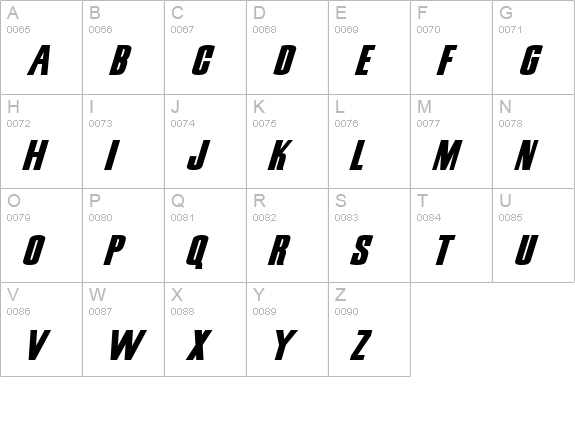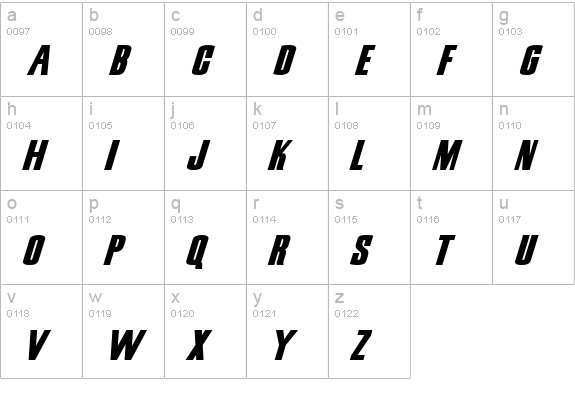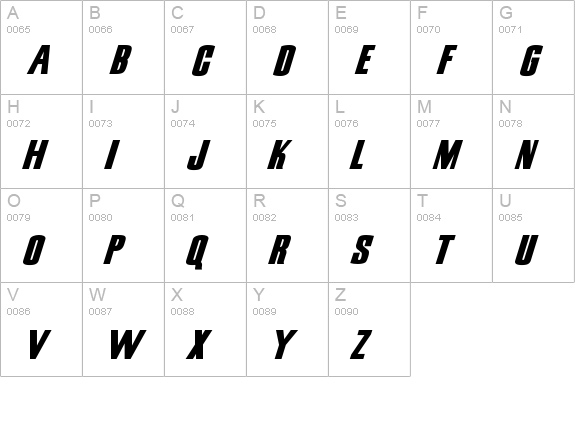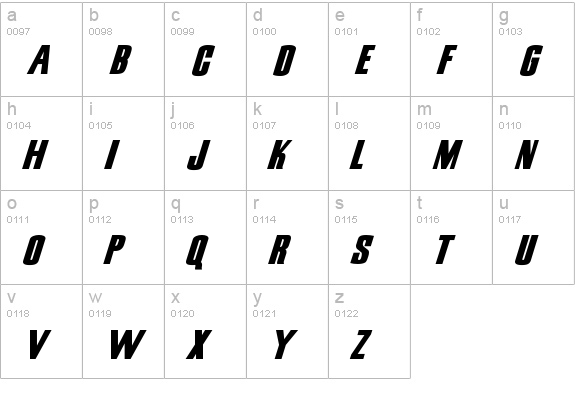
Snickers Normal Font Details
Snickers Normal is the standard, neutral variant in the Snickers typeface family \xE2\x80\x94 well suited to general body text, paragraphs, and standard typographic work.
Introducing Snickers Normal font, a versatile and contemporary typeface that effortlessly combines elegance and functionality. With its clean lines and balanced proportions, Snickers Normal is perfect for a wide range of design projects, from branding and advertising to packaging and digital media. This font exudes a sense of modernity and sophistication, making it ideal for those seeking a refined look. Its smooth curves and well-defined letterforms ensure excellent legibility, even at smaller sizes. Whether used for headlines, body text, or both, Snickers Normal delivers a polished and professional appearance. But what truly sets Snickers Normal apart is its accessibility. This font is freely available to download at FontsMarket.com, allowing designers and enthusiasts to easily incorporate it into their creations. By offering Snickers Normal free of charge, we aim to empower creativity and provide a valuable resource for the design community. So, why wait? Unlock the potential of your projects with Snickers Normal font and experience the seamless harmony of style and functionality. Download it today from FontsMarket.com and discover the endless possibilities it brings to your designs.